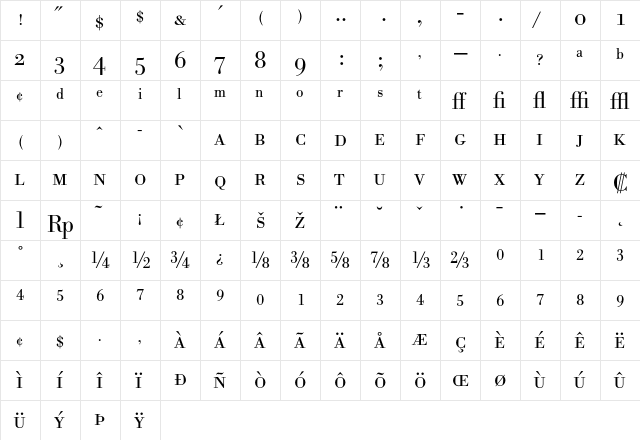
Bodoni BE Light Expert
Design Context for Bodoni BE Typeface
Bodoni BE offers clean, dependable letterforms without strong stylistic allegiance, making it a practical choice for designers who need flexibility. Its slender proportions lend an understated elegance to any composition.
Pro Tip: Pair Bodoni BE with a font of contrasting weight or personality to build a more expressive typographic hierarchy.